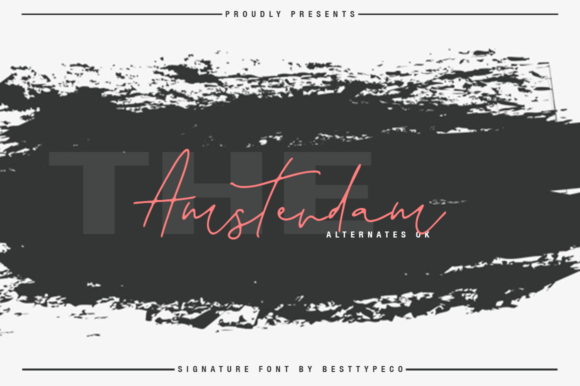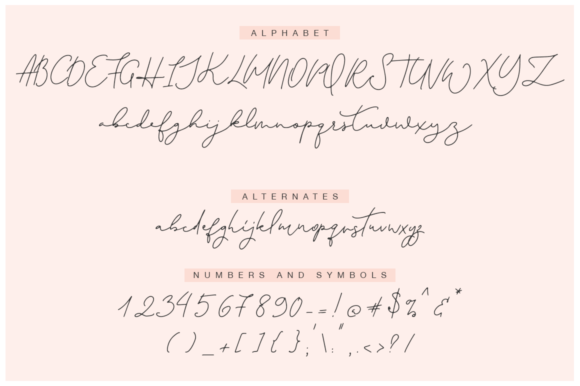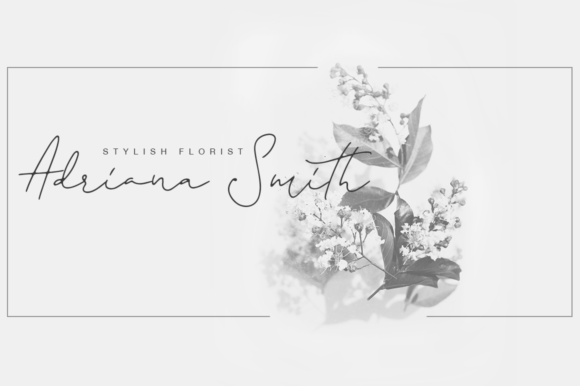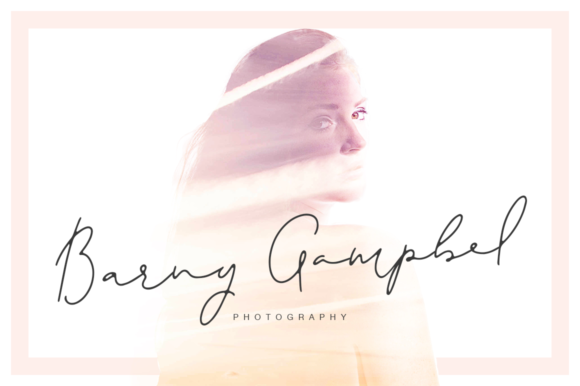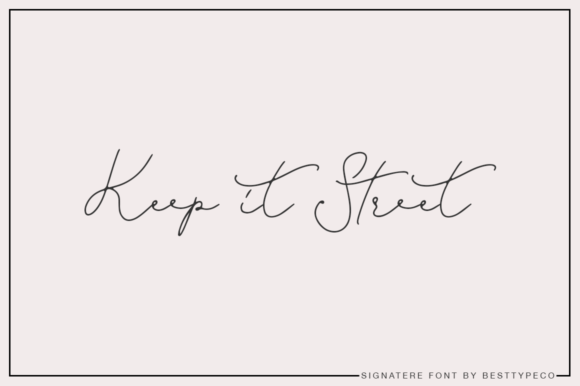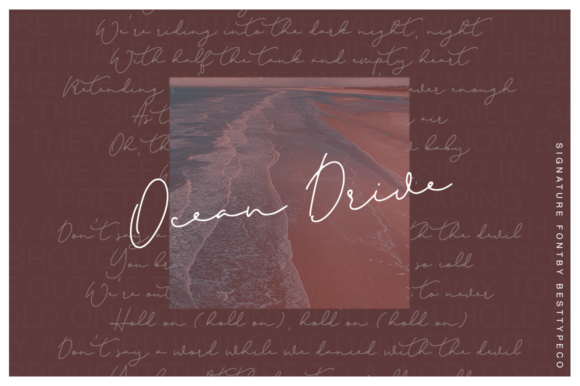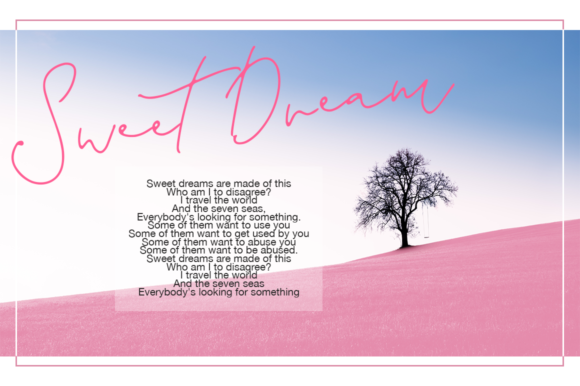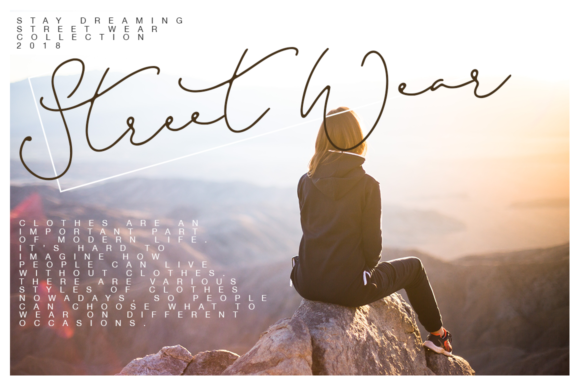
About Amsterdam Font
Amsterdam is a relaxed and incredibly beautiful handwritten font. Fall in love with its incredibly versatile style and use it to create gorgeous wedding invitations, beautiful stationary art, eye-catching social media posts, and much more!